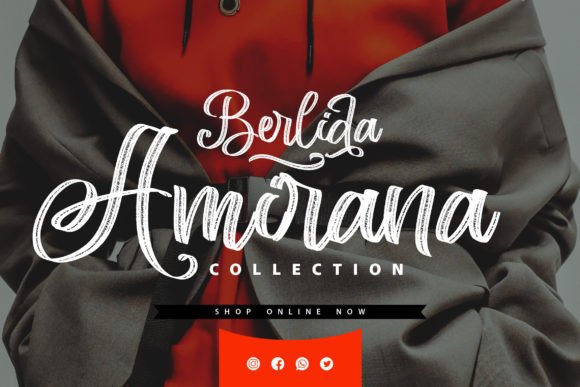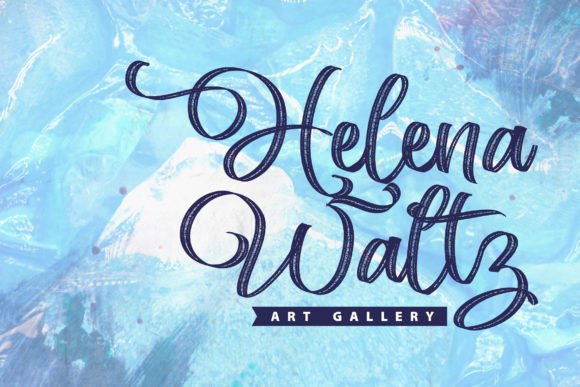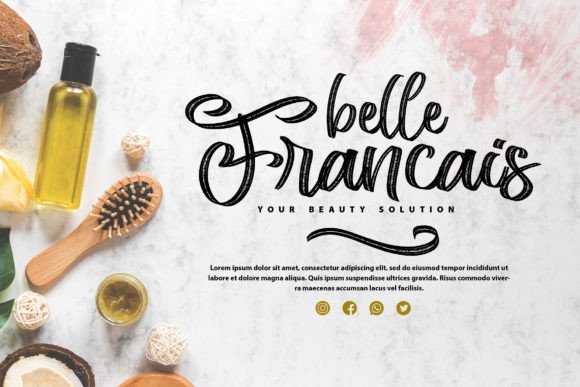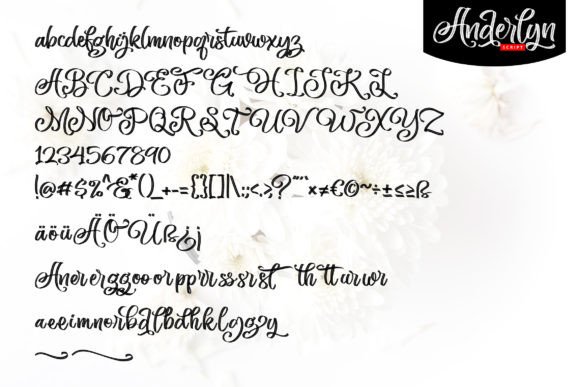
Introducing Anderlyn Font: Elevate Your Designs with Elegant Calligraphy
In the world of typography, few fonts manage to capture the essence of elegance and sophistication as Anderlyn Font does. This beautifully flowing handwritten font, with its distinct calligraphy style, has become a favorite among designers and crafters looking to add a touch of class to their projects. Whether you’re working on invitations, greeting cards, branding materials, business cards, quotes, posters, or more, Anderlyn Font is sure to make your designs stand out.
The Beauty of Anderlyn Font
Anderlyn Font boasts a unique, fluid script that mimics the natural flow of handwriting. Its calligraphy style is not only visually appealing but also versatile, making it suitable for a wide range of applications. From formal events to casual gatherings, Anderlyn Font can add a personal and sophisticated touch to any design.
One of the key features that set Anderlyn Font apart is its PUA (Private Use Area) encoding. This means that users can easily access all the glyphs and swashes, allowing for greater creativity and flexibility in design. The inclusion of swashes and glyphs enables designers to add intricate details and flourishes to their work, making each piece truly unique.
Applications of Anderlyn Font
The versatility of Anderlyn Font makes it an excellent choice for various design projects. Here are some of the ways you can use this beautiful font:
- Invitations: Make your wedding, birthday, or event invitations truly special with Anderlyn Font. Its elegant style sets the tone for a sophisticated and memorable occasion.
- Greeting Cards: Whether it’s a thank-you card, a Christmas greeting, or a get-well card, Anderlyn Font adds a personal and heartfelt touch.
- Branding Materials: Elevate your brand’s visual identity with Anderlyn Font. Use it in your logo, brochures, or packaging to convey elegance and professionalism.
- Business Cards: Stand out in the business world with beautifully designed business cards featuring Anderlyn Font. It’s a great way to make a lasting impression.
- Quotes and Posters: Create stunning quote posters or motivational artwork with Anderlyn Font. Its flowing script makes quotes and messages more impactful.
Why Choose Anderlyn Font?
With so many fonts available, why should Anderlyn Font be your choice? Here are a few reasons:
- Unique Style: Anderlyn Font offers a distinctive calligraphy style that can set your designs apart from the rest.
- Ease of Use: Being PUA encoded, Anderlyn Font is easy to use, even for those who are new to font design. Accessing glyphs and swashes is straightforward, allowing you to focus on your creative process.
- Versatility: From formal to casual designs, Anderlyn Font adapts well to various themes and styles.
- Support for Creative Projects: Anderlyn Font is perfect for crafters and designers who want to add a personal touch to their handmade projects or professional designs.
Tips for Using Anderlyn Font Effectively
To get the most out of Anderlyn Font, consider the following tips:
- Pair with Complementary Fonts: When using Anderlyn Font alongside other fonts, choose ones that complement its elegant style. Simple sans-serif fonts often work well for contrast.
- Play with Swashes: Don’t be afraid to experiment with the swashes and glyphs available in Anderlyn Font. They can add a unique flair to your designs.
- Adjust Size and Color: Depending on your design, you might want to adjust the size and color of Anderlyn Font to make it stand out or blend in seamlessly.
Anderlyn Font is more than just a font; it’s a tool for designers and crafters to create stunning, elegant designs. Its beautiful calligraphy style, combined with PUA encoding for easy access to glyphs and swashes, makes it a versatile and valuable addition to any creative toolkit. Whether you’re designing for personal projects or professional clients, Anderlyn Font can help elevate your work to new heights of sophistication and style.